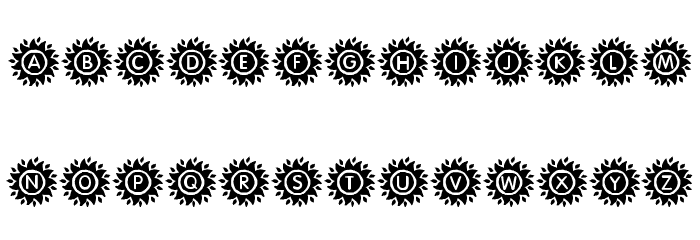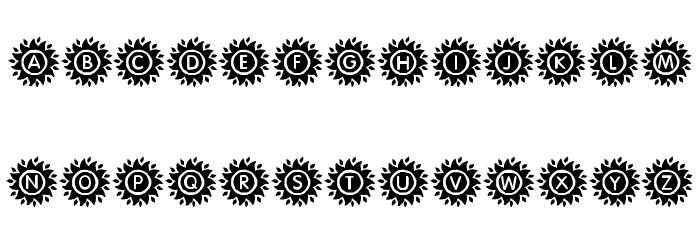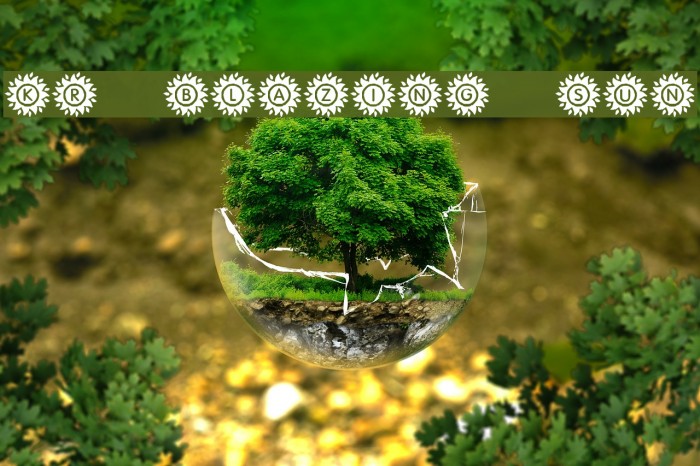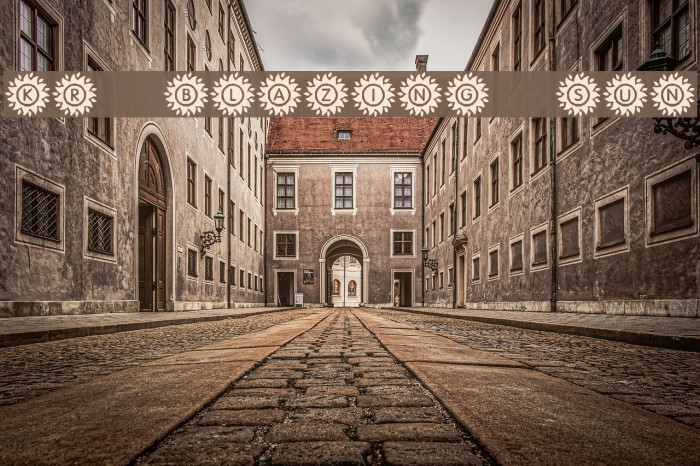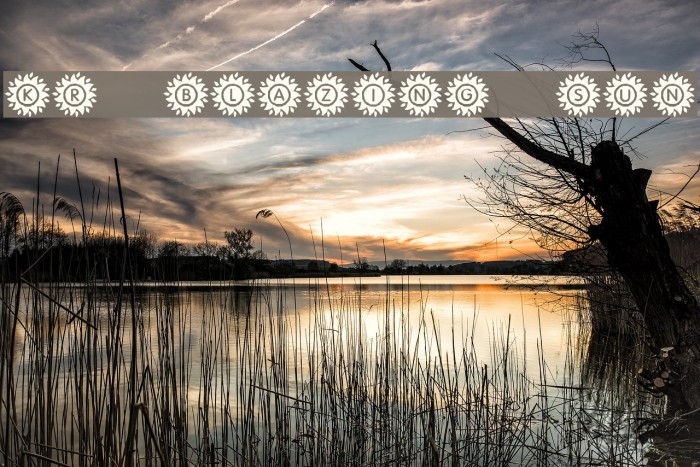
KR Blazing Sun Font
This font features a unique design where each character is encased within a circular sunburst pattern, giving it a dynamic and energetic appearance. The letters are bold and clear, making them stand out against the intricate sun-like border. This decorative style is eye-catching and adds a playful yet bold element to any design. The font's distinctiveness lies in its ability to combine readability with an artistic flair, making it suitable for projects that require a strong visual impact.
A bold, decorative font with characters encased in sunburst patterns.
- Proposed Projects: Ideal for event posters, children's book covers, summer-themed graphics, and branding materials that require a lively and bold aesthetic.